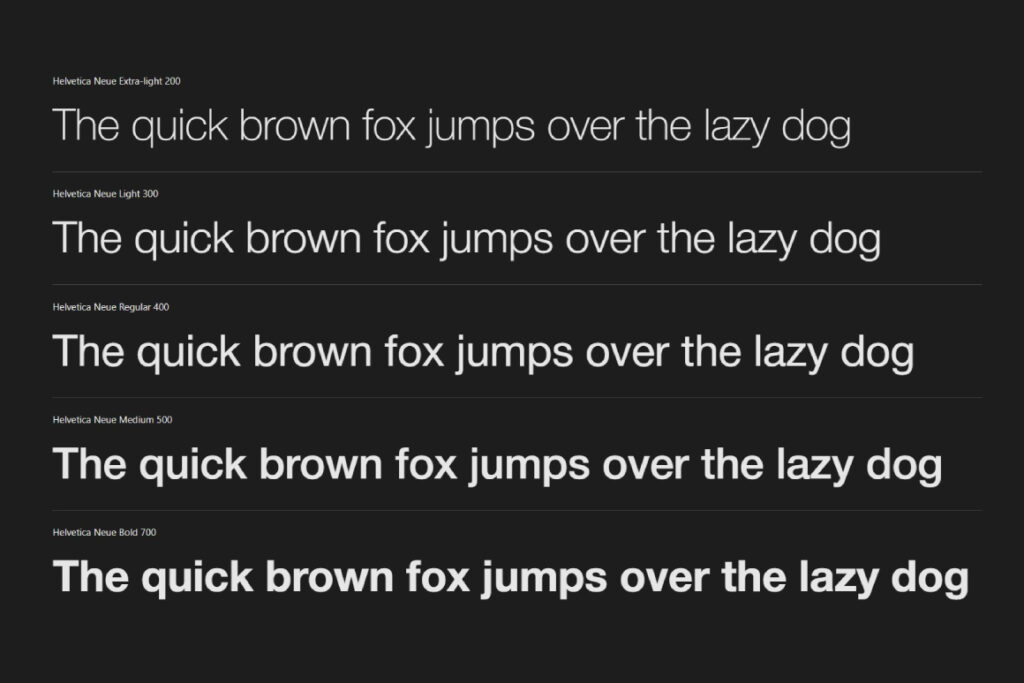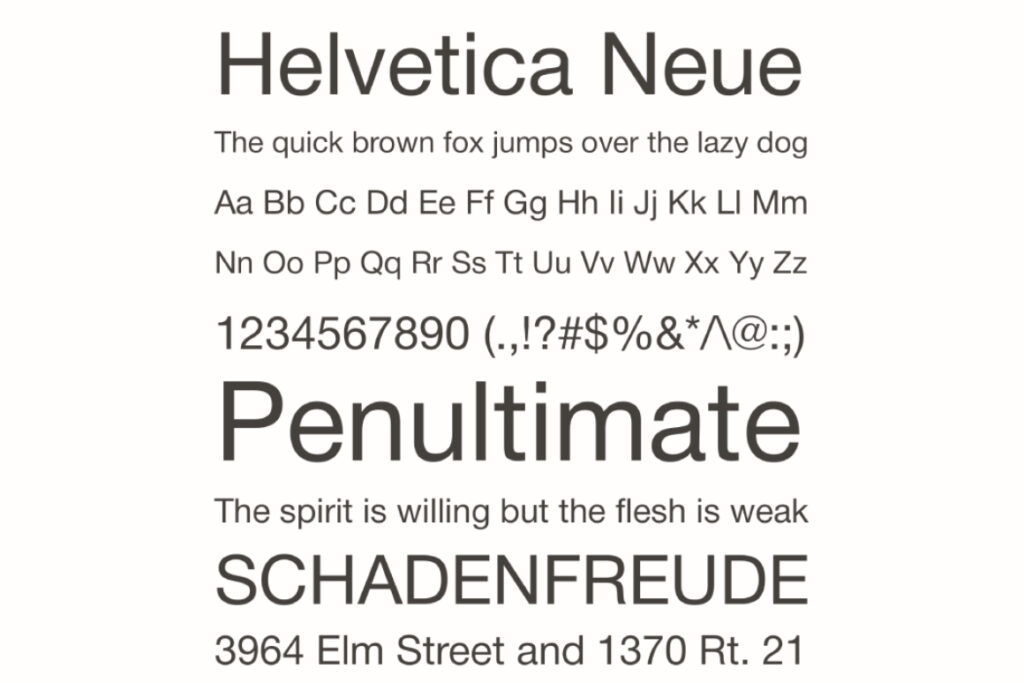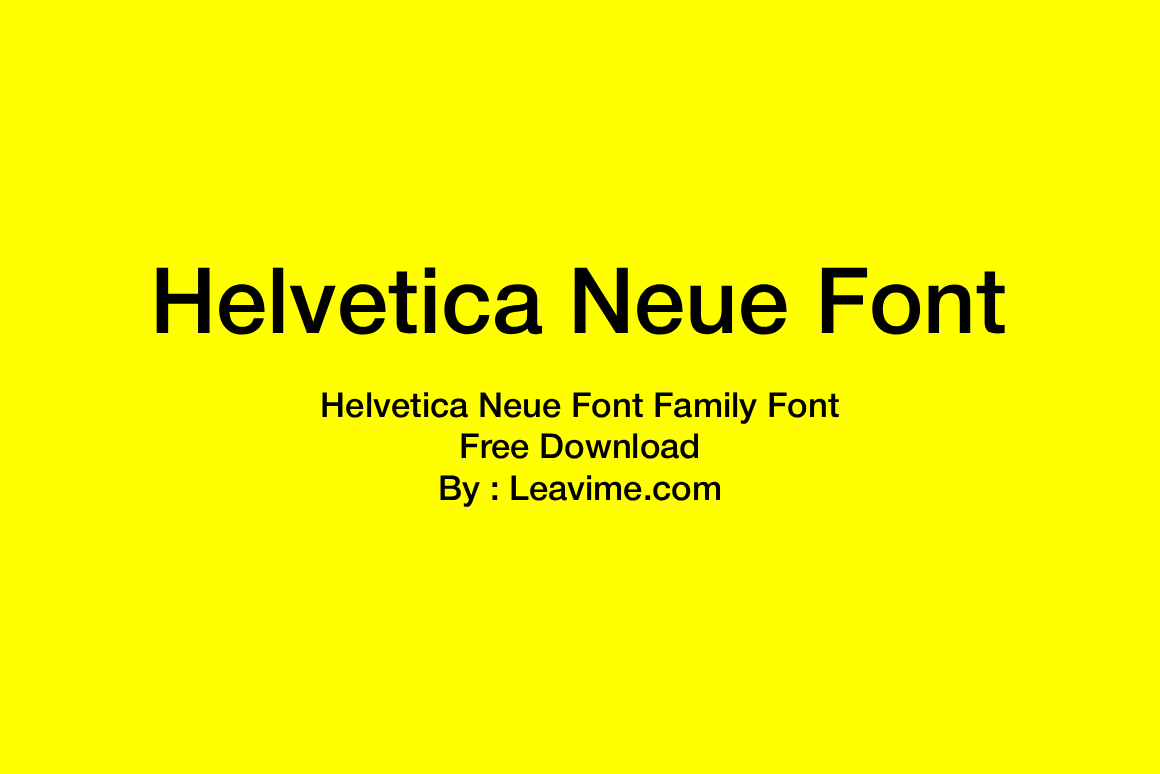
Helvetica Neue Font Family
Helvetica Neue Font Family is a timeless sans serif font known for its clean, modern, and highly readable design. Originally developed as an improvement of the classic Helvetica typeface, it features balanced proportions, refined letterforms, and exceptional versatility. Its minimalist appearance makes it a popular choice for branding, advertising, web design, editorial layouts, and professional print projects.
As a complete family font, Helvetica Neue offers a wide range of weights and styles, from Ultra Light to Black, allowing designers to create consistent and flexible typography systems. The extensive font family provides excellent hierarchy and visual harmony, making it suitable for everything from headlines and logos to body text and user interfaces.
Helvetica Neue remains one of the most influential typefaces in modern graphic design. Its neutral and professional character enables it to adapt seamlessly across different industries and creative applications. Whether used in digital products, corporate branding, packaging, or publications, Helvetica Neue delivers a polished and sophisticated look that stands the test of time.